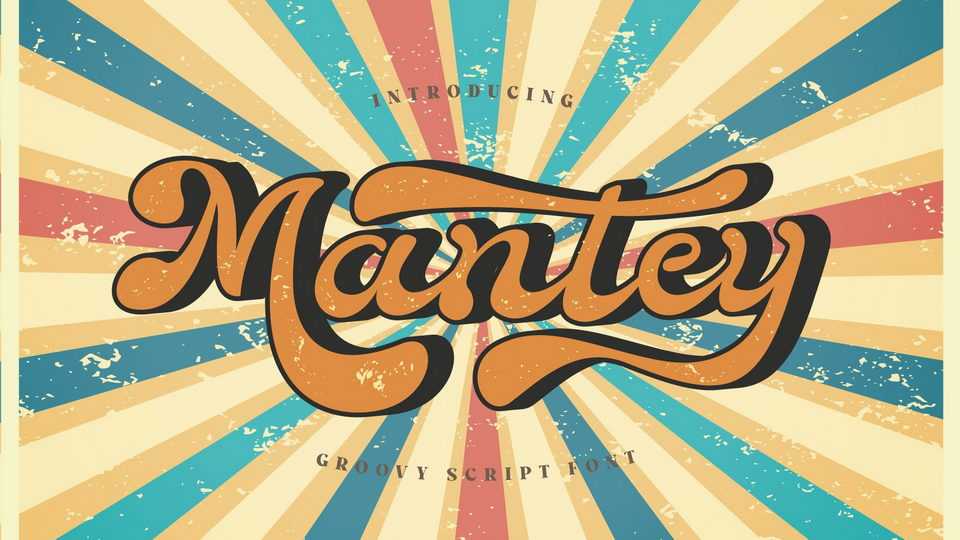
Download Mantaey font, a hand lettered typeface inspired by the design styles of the 70s. The style is funny, groovy, classic, not serious but has aesthetic and unique value, besides that the Mantaey font is very easy to remember and becomes the image of a design.